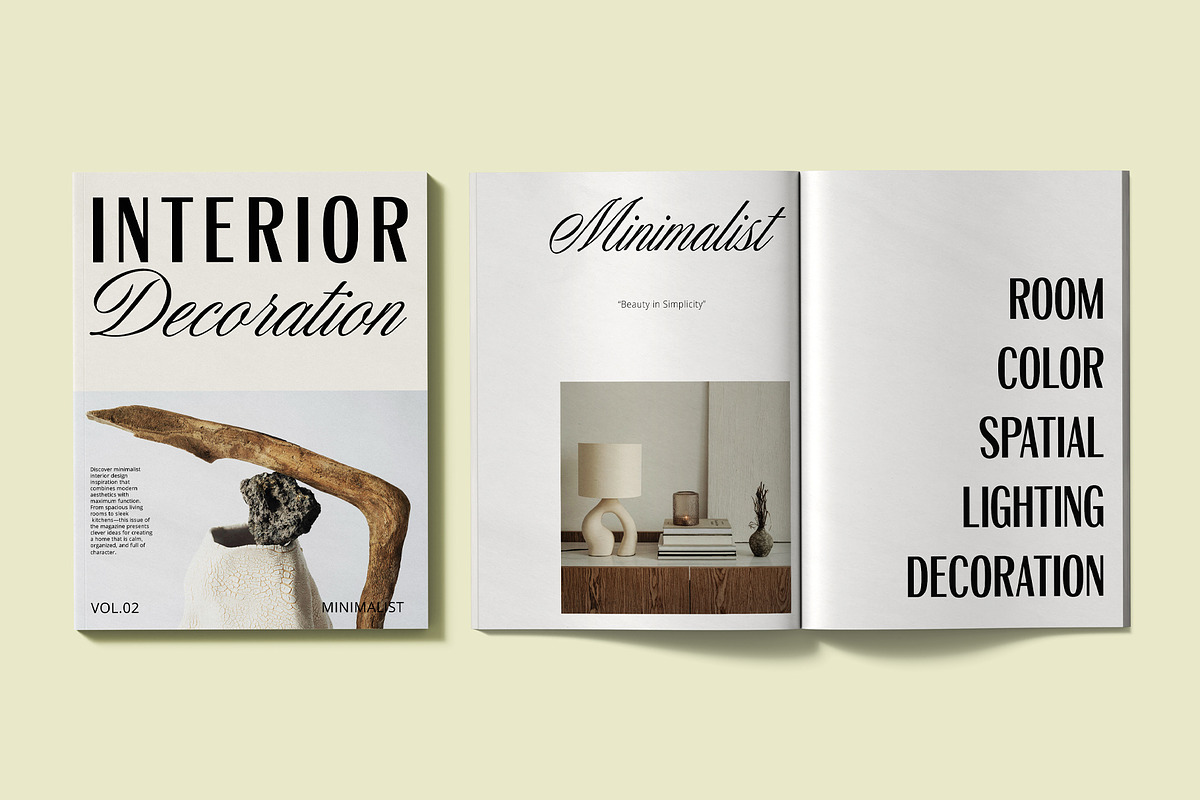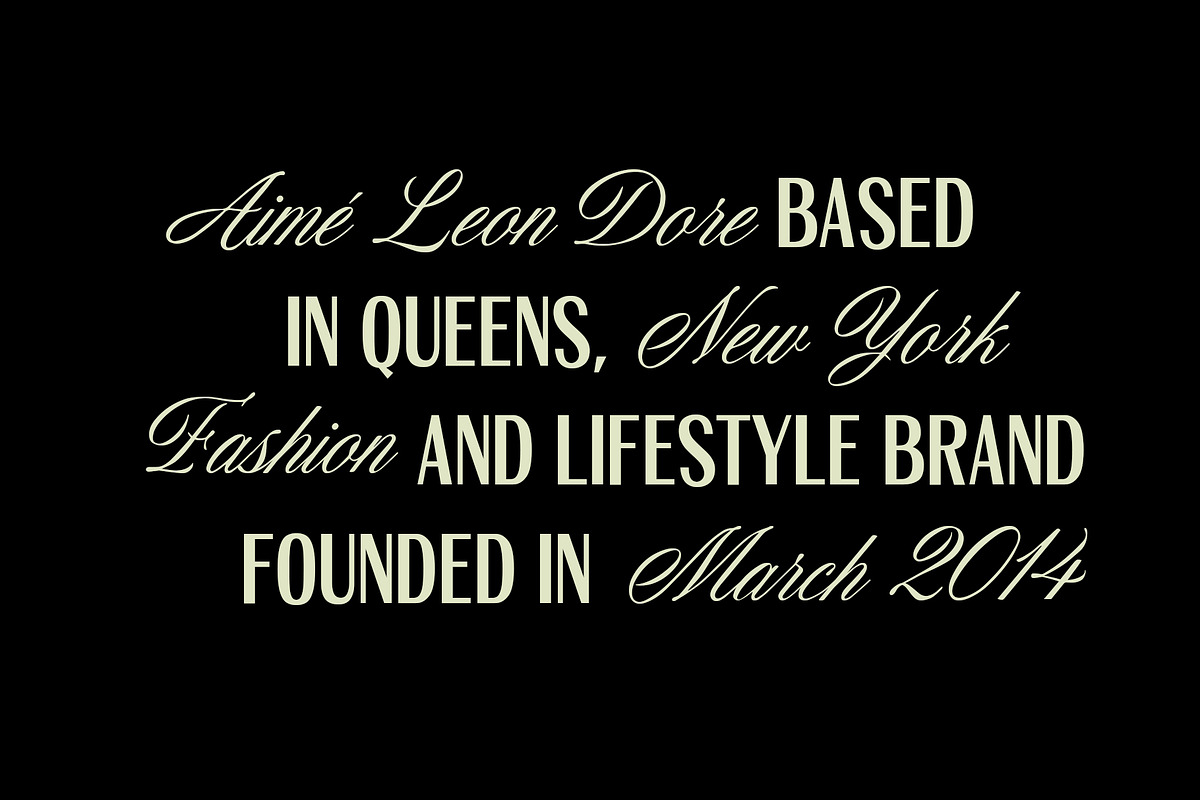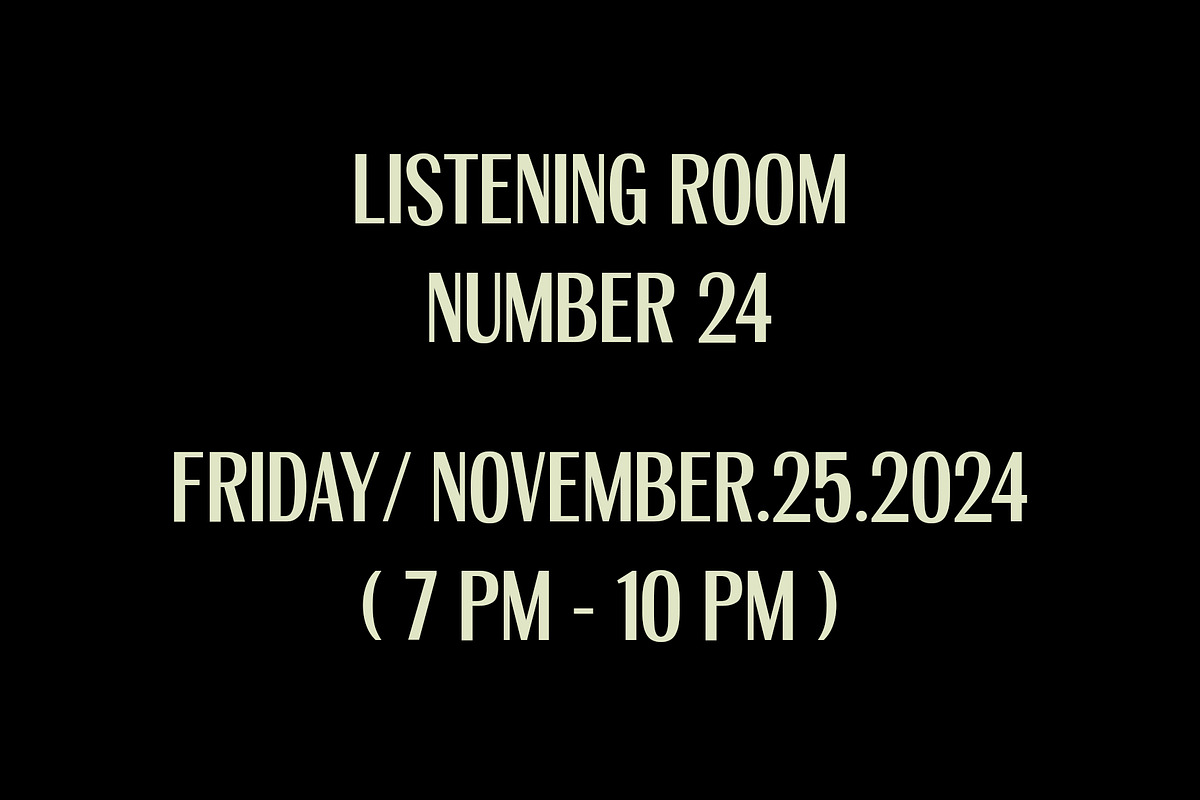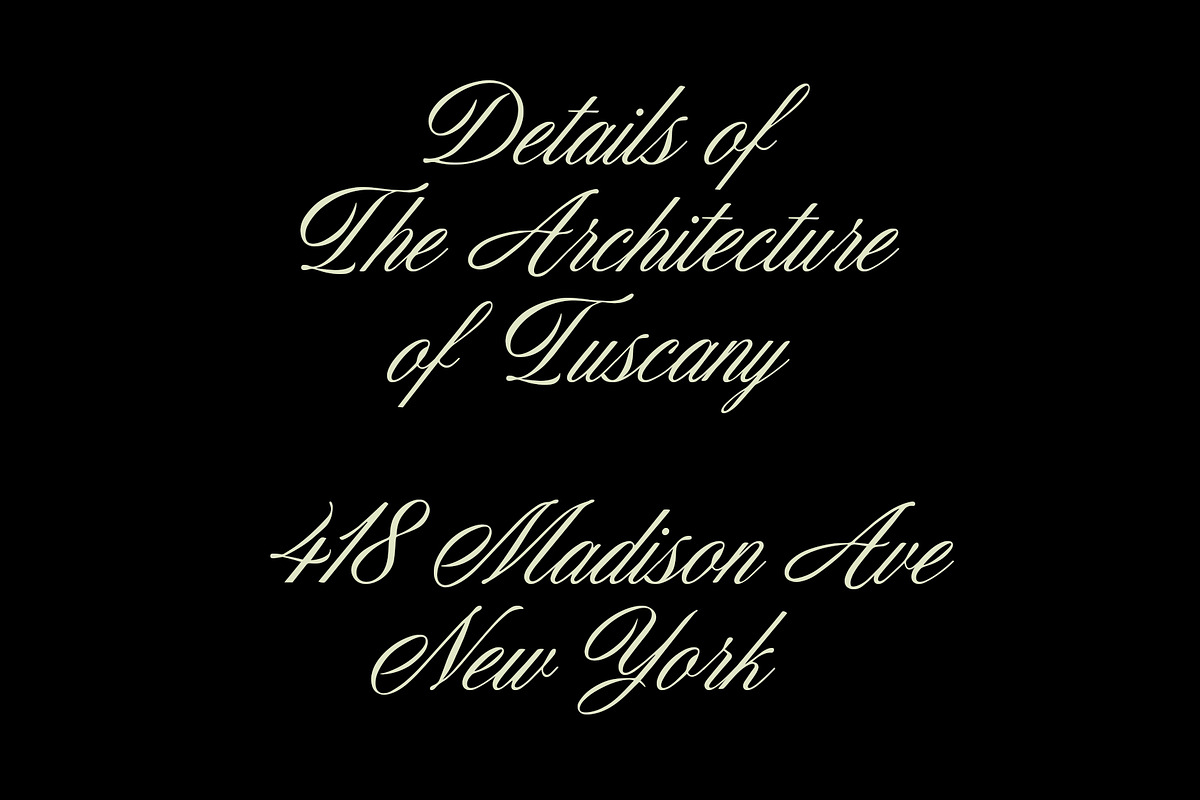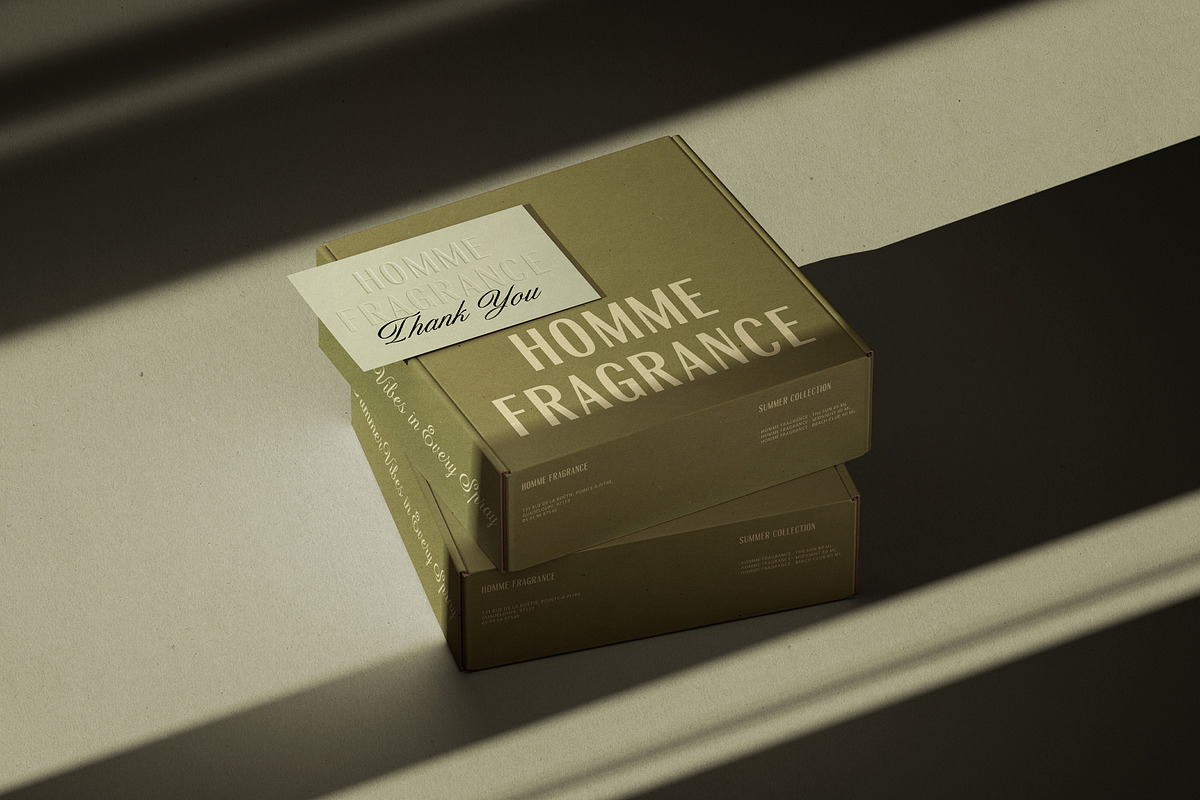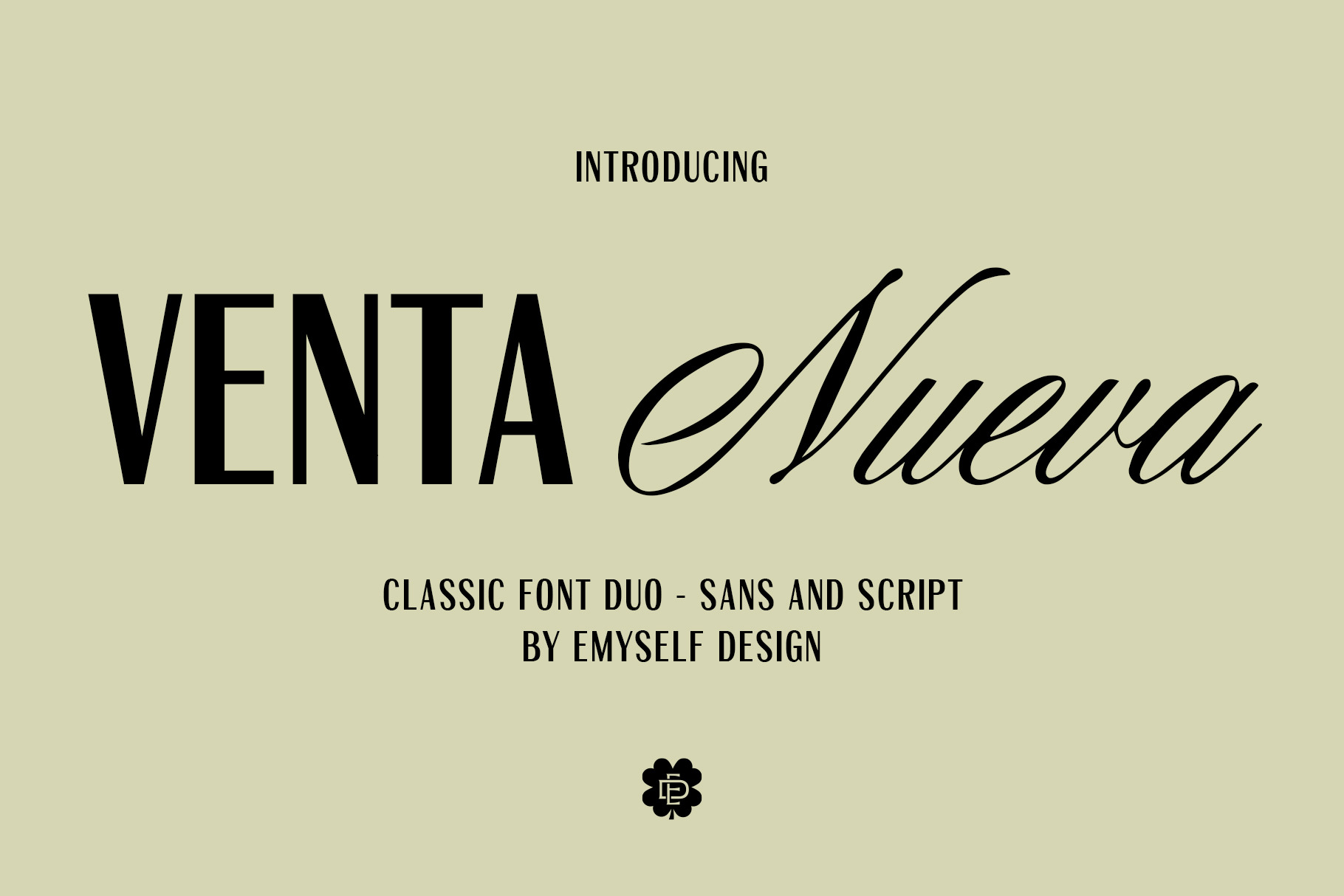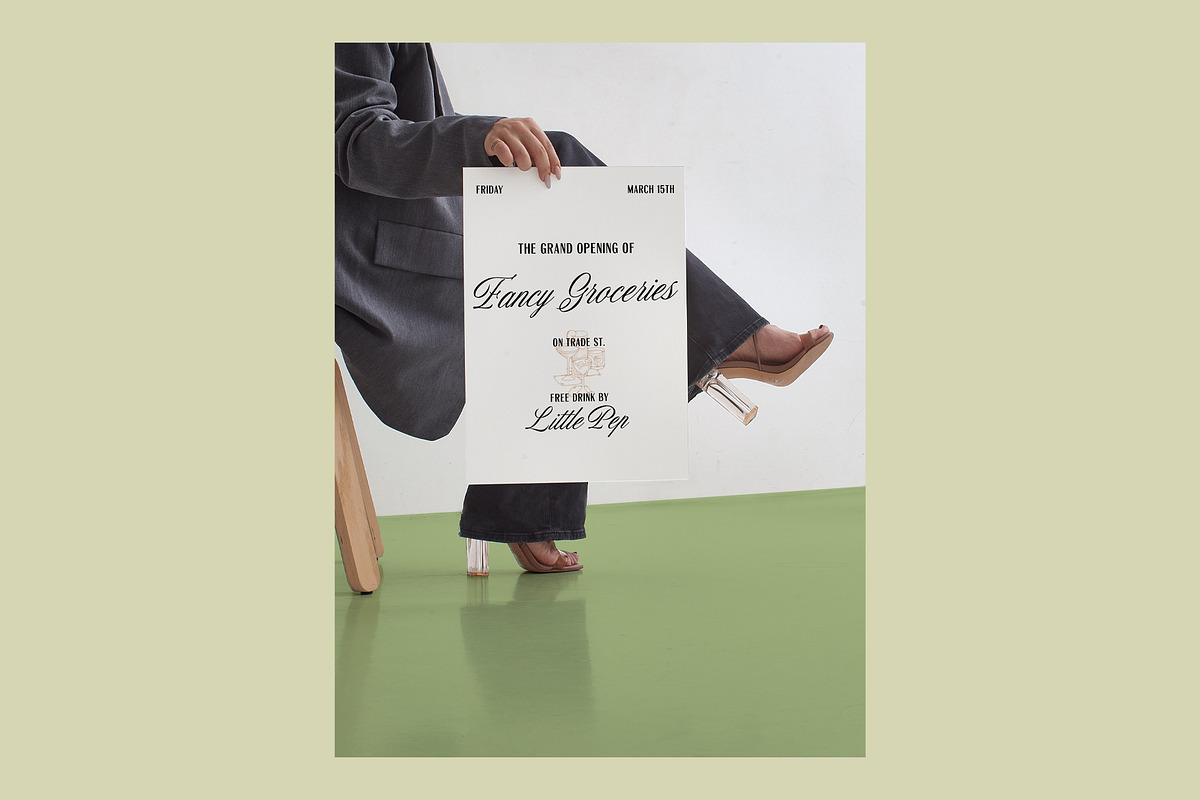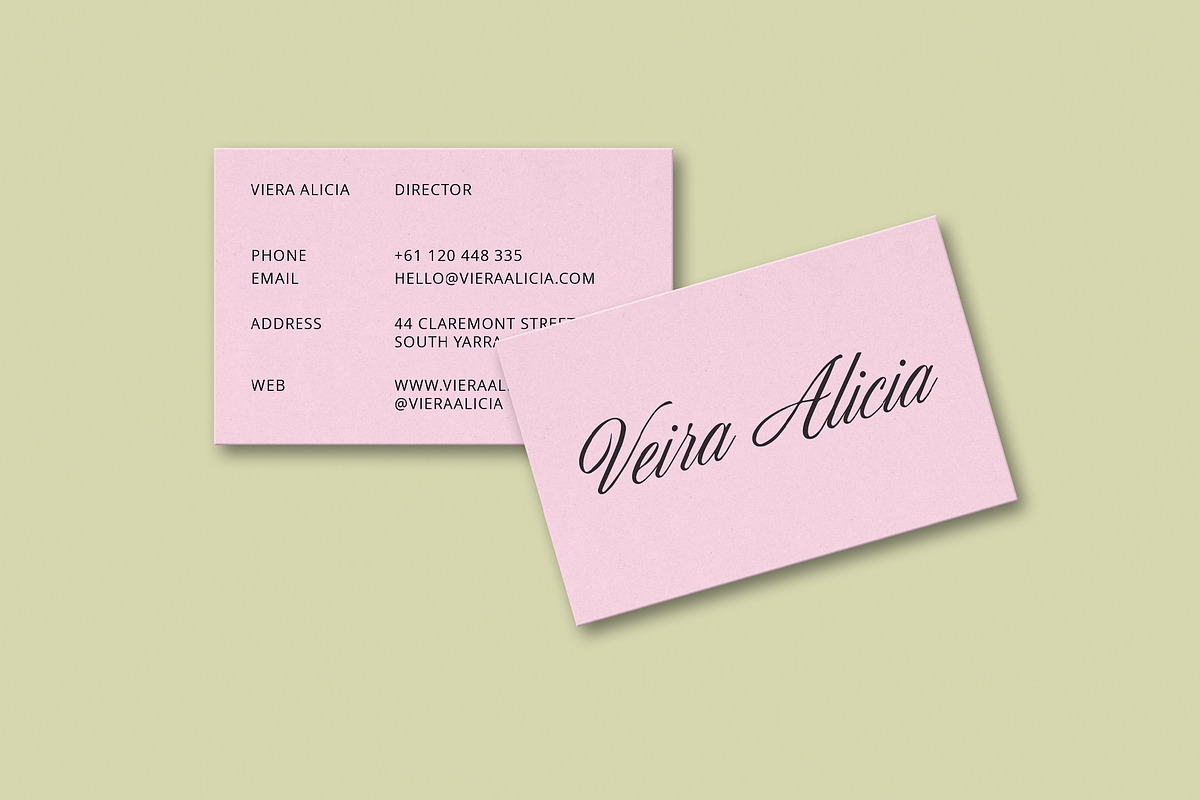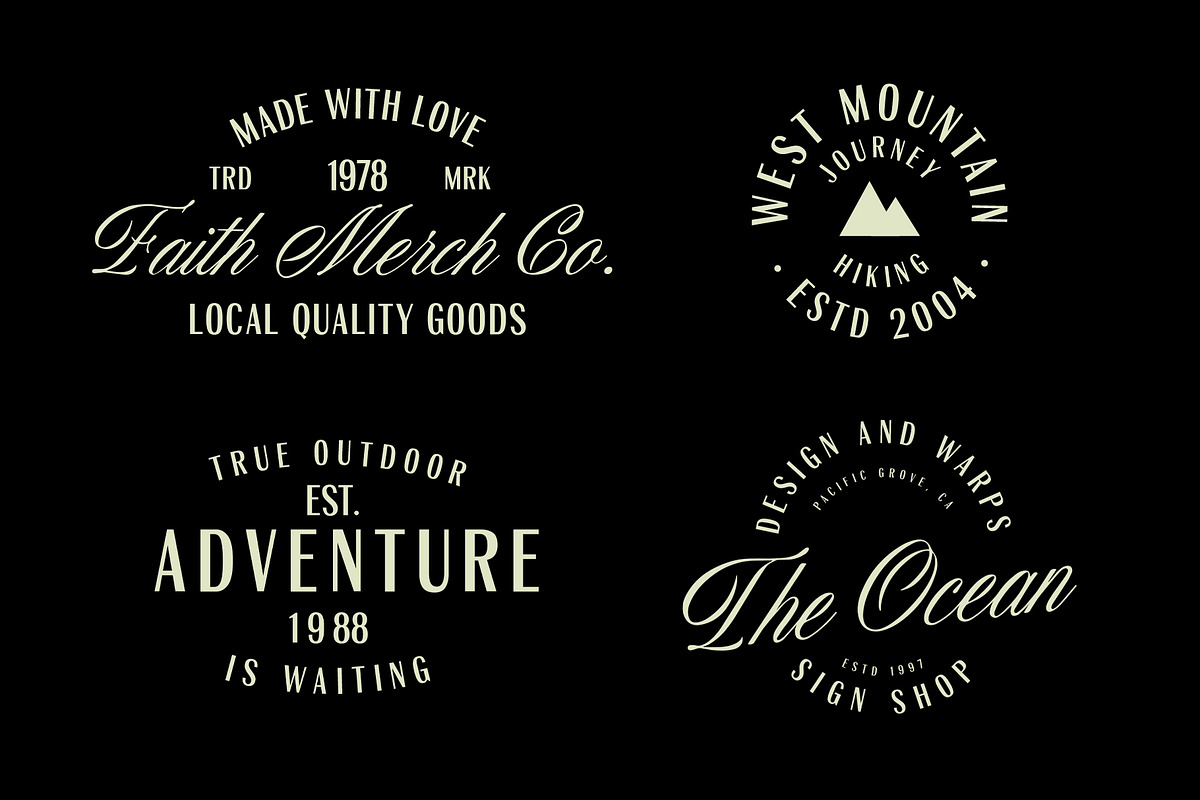
ED Venta Nueva - Font Duo
Introducing Venta Nueva, a charming duo font that brings the perfect harmony between classic elegance and modern simplicity. This unique combination consists of two complementary typefaces:
Script Font: A classic handwritten style that is smooth and flowing, perfect for creating an elegant, warm, and personal impression. Ideal for branding, wedding invitations, quotes, and feminine designs.
Sans Font: A capital letter style with a classic, minimalist look. Its clean, versatile design makes it perfect for headlines, logos, and typographic elements that require clarity.
Venta Nueva is designed to provide flexibility in a variety of design projects. Use a combination of the two to create an interesting visual contrast.
Total Glyphs: Script 379 / Sans 363
Lowercase
Punctuation and Marks
Symbols